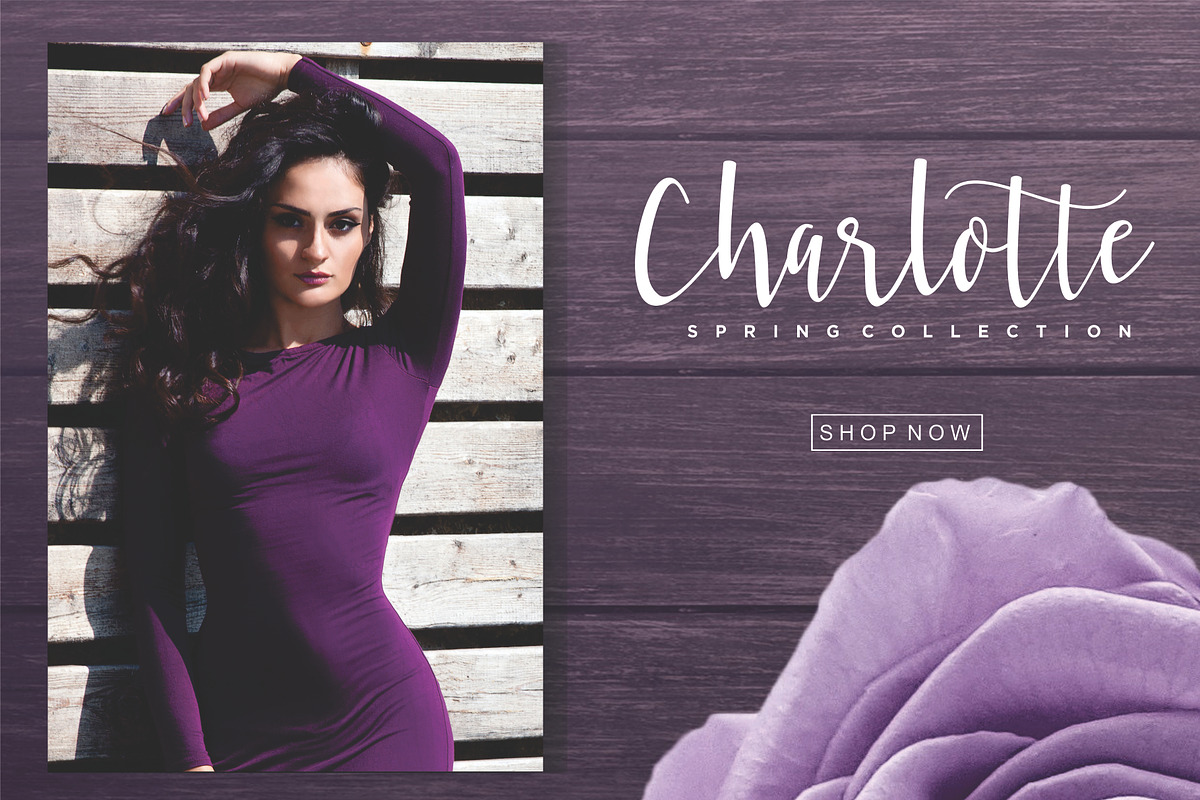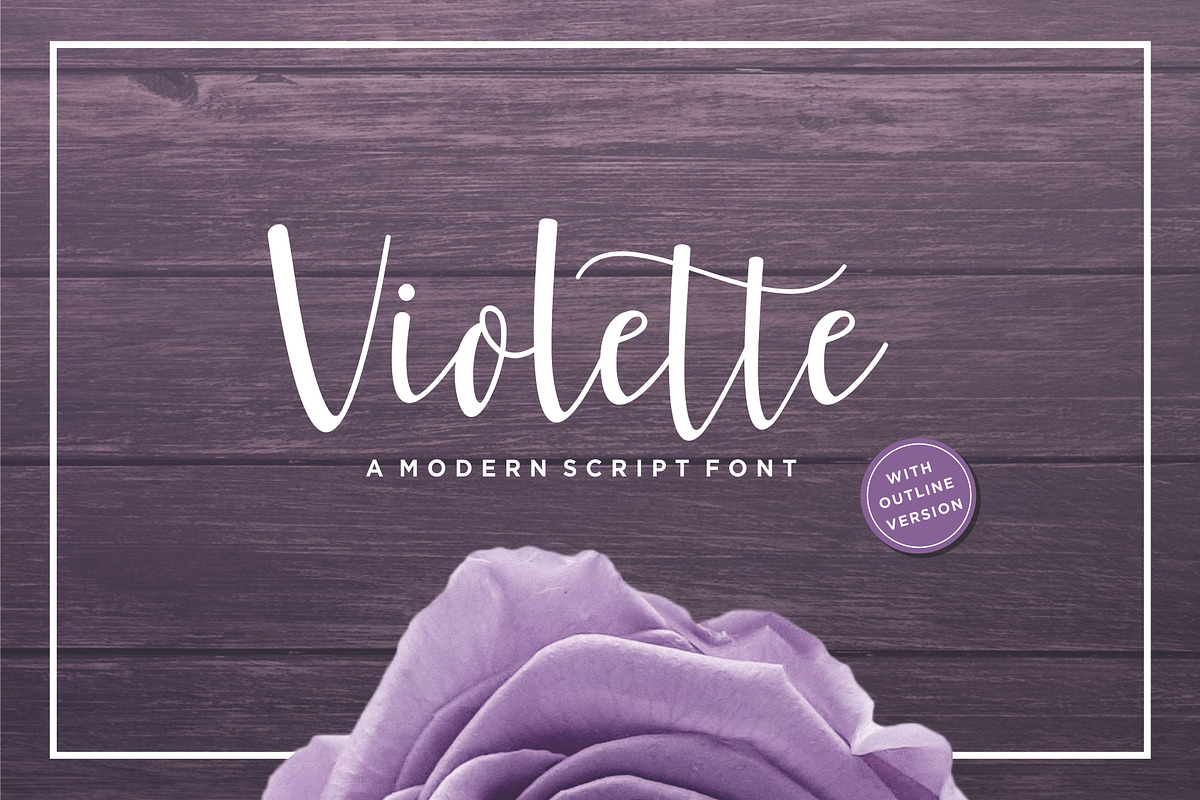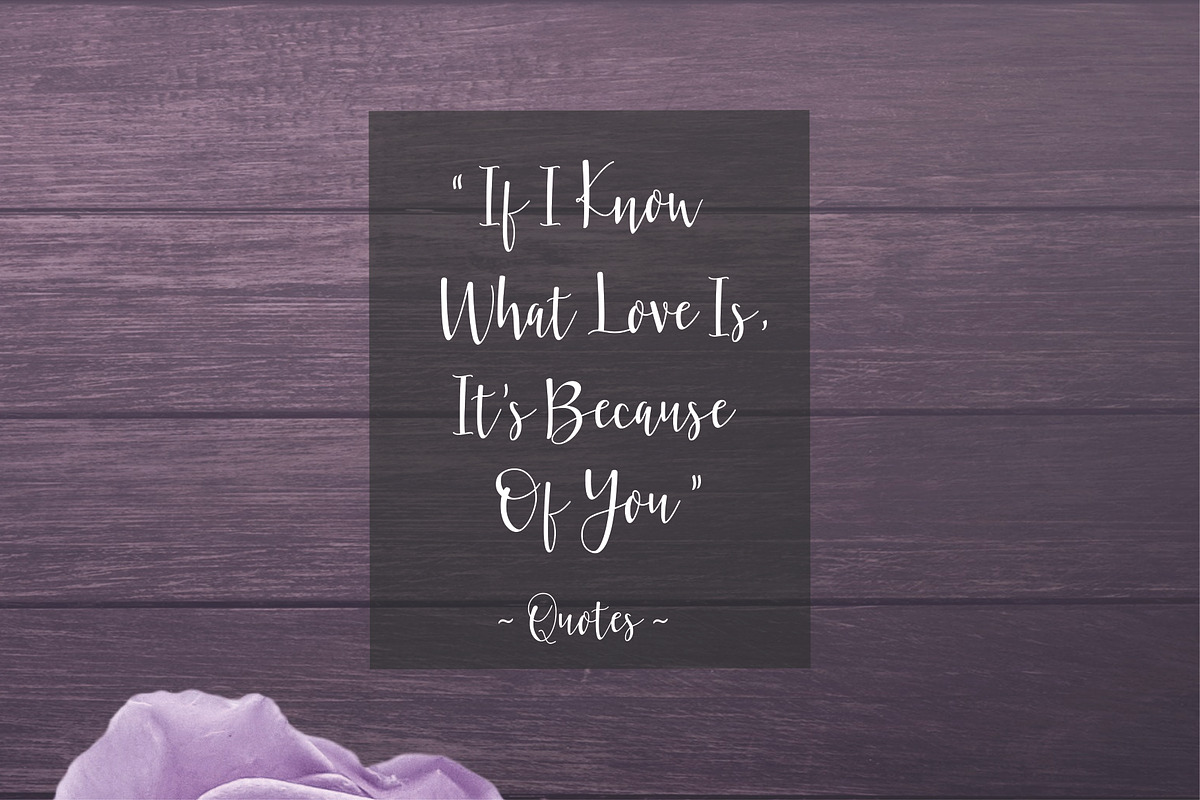
Violette Script Font
Violette is a beautiful modern script font that comes with both a clean and outlined version that gives this font an elegant and stylish vibe. This font is suitable for displays and projects that need a calligraphic feel.
Why Violette Script Font is worth a look
Violette Script Font by Sronstudio fits naturally into Branding, posters, packaging, typography.